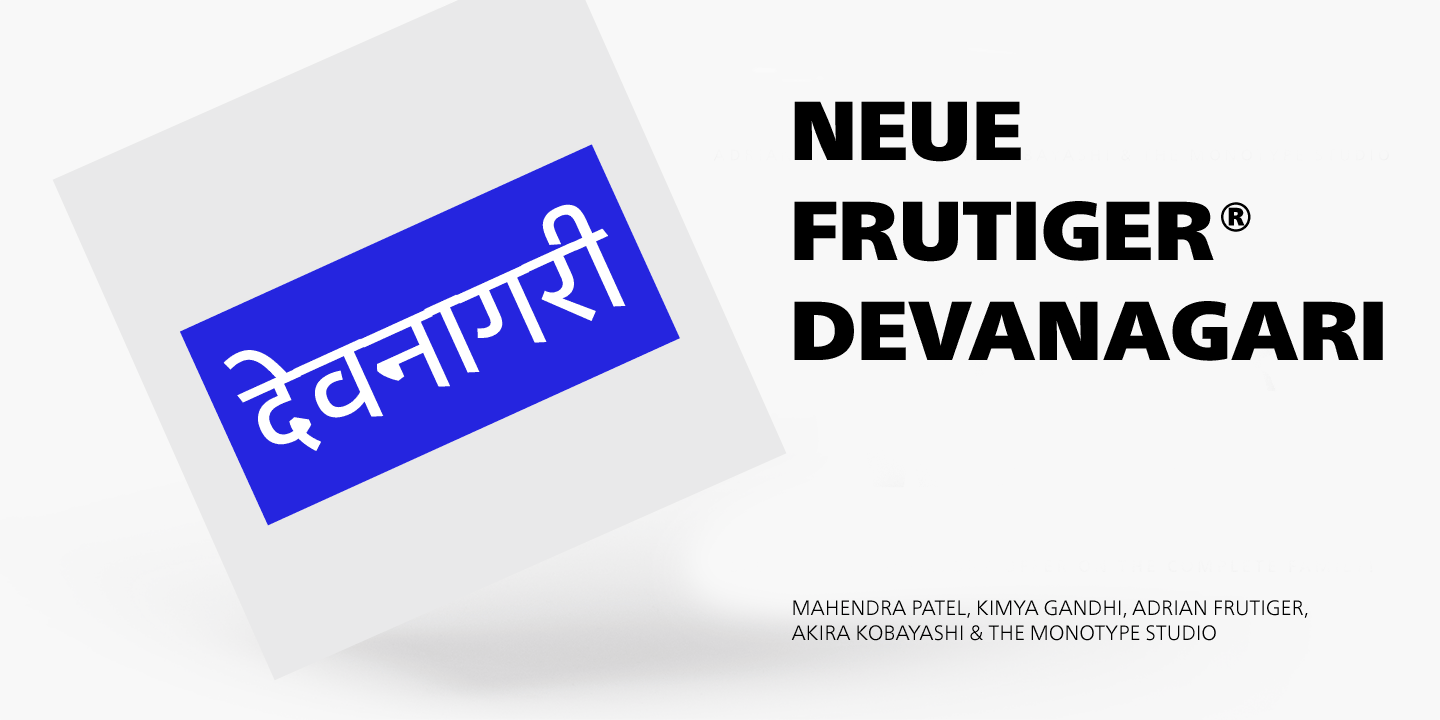
Neue Frutiger Devanagari Font is perfect for multilingual publications, international corporate communications, cultural institutions, educational materials, government documents, global branding projects, academic research papers, cultural heritage presentations, and cross-cultural design applications. This sophisticated typeface brings harmonious bilingual typography and cultural sensitivity to projects requiring seamless integration of Latin and Devanagari scripts.
What makes Neue Frutiger Devanagari Font exciting is its masterful cultural bridge that combines Swiss typographic excellence with authentic Devanagari calligraphic traditions to create unprecedented harmony between diverse writing systems. The font features perfectly balanced letterforms that respect both Latin geometric precision and Devanagari organic flow while maintaining consistent visual weight and rhythm. Its multicultural character and inclusive personality make it irresistible for global organizations seeking typography that honors cultural diversity while ensuring seamless communication across linguistic boundaries.
The Neue Frutiger Devanagari Font family includes comprehensive weights and multilingual styles: Light, Regular, Medium, Bold, and Black variations with matching Devanagari weights and traditional conjuncts. Each weight maintains the font's bicultural character while offering designers complete flexibility for international branding and cross-cultural communication applications requiring authentic representation.
Whether you're designing for international markets or multicultural audiences, Neue Frutiger Devanagari Font Free Download provides designers with a culturally-sensitive, globally-focused typeface solution. The font's bicultural aesthetics and inclusive styling make it ideal for international corporations, cultural museums, educational institutions, and global NGOs. Its respectful presence ensures your message communicates cultural awareness and global competence while maintaining exceptional readability. The comprehensive character set includes authentic Devanagari features and international symbols, making it perfect for creating inclusive headlines and brand identities that celebrate cultural diversity and establish meaningful connections with multilingual audiences seeking authentic cross-cultural experiences.